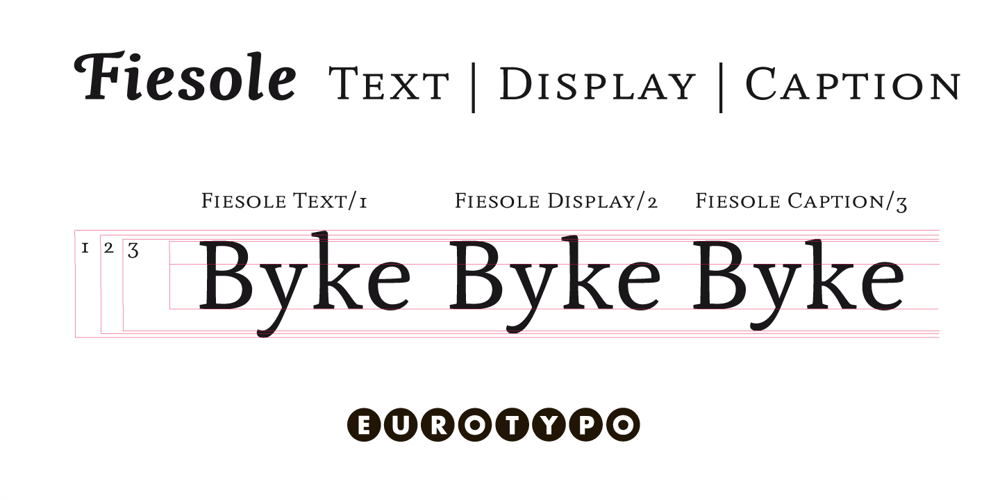
Fiesole Font Family was designed by Olcar Alcaide and published by Eurotypo. Fiesole contains 17 styles and family package options. Fiesole was inspired by calligraphic models; it is a bookface font family to be used for text, display and caption. Fiesole has three different lengths of items (ascenders-descenders). Old style figures have been included in the fonts. Spacing of Small Caps has been adjusted to obtain good legibility and integrity with Capitals and lower cases. Fiesole Text: Two weights. Fiesole Display: Two weights. Fiesole Caption: Five weights. They include also CE languages, swashes, small caps, ligatures, discretionary ligatures, alternates, old style figures and case sensitive forms.